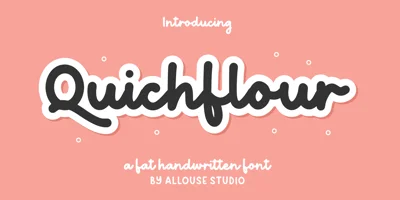
Quichflour Font
Quichflour Font excels in bakery branding projects, artisan flour packaging, gourmet restaurant menus, culinary school materials, food blog headers, cooking magazine layouts, recipe book designs, farm-to-table marketing, organic food labeling, and specialty kitchen product branding. Its culinary character makes it perfect for projects requiring artisanal charm and gastronomic sophistication that celebrates the craft of cooking.
What makes Quichflour Font exciting is its delightful fusion of rustic baking traditions with contemporary culinary design that perfectly captures the artistry of handcrafted food preparation. The font features warm, flour-dusted letterforms that evoke the cozy atmosphere of traditional bakeries while maintaining modern functionality for today's food industry. Its culinary character transforms ordinary text into appetizing visual experiences that make mouths water and hearts warm.
The Quichflour Font family includes Regular, Bold, Light, Rustic, Artisan, Baker, and Gourmet variations. Each style preserves the font's culinary essence while offering different levels of artisanal character and gastronomic weight for creating delicious food-related graphics. The comprehensive character set includes culinary symbols, kitchen ornaments, food decorations, and gastronomic glyphs essential for authentic cooking and baking typography projects.
Culinary professionals and food brands consistently choose Quichflour Font for projects demanding authentic gastronomic typography solutions. The font's artisanal character instantly establishes appetizing atmospheres while ensuring clear communication across various food marketing channels. Its versatility spans from subtle bakery touches to bold culinary statements that celebrate the passion and craftsmanship of exceptional food preparation.
Whether you're developing artisan food brand identities, creating culinary marketing materials, or designing gourmet restaurant communications, Quichflour Font provides the perfect combination of gastronomic authenticity and modern functionality. The font's lovingly crafted letterforms ensure genuine culinary character while maintaining excellent performance across various food industry applications and artisanal business communications.
The gastronomic heritage of Quichflour Font makes it exceptional for creating meaningful connections with food lovers who appreciate culinary craftsmanship and artisanal quality. Its flour-dusted precision and culinary appeal work seamlessly across traditional bakery signage and modern food delivery platforms. The font performs deliciously in both large-scale restaurant displays and intimate recipe communications.
Savor the artistry with Quichflour Font and discover how authentic culinary typography can enhance your food projects with genuine gastronomic appeal and artisanal charm. This remarkable typeface combines baking traditions with contemporary functionality, making it indispensable for food businesses celebrating the timeless craft of exceptional cooking and baking.